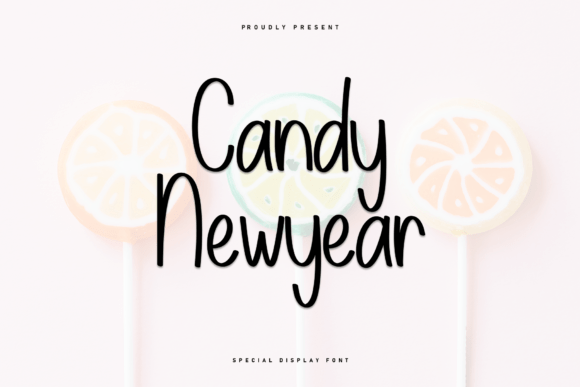
Candy Newyear Font: A Sweet and Beautiful Handwritten Font
Are you looking for a font that can add a touch of sweetness and coziness to your design projects? Look no further than the Candy Newyear Font! This beautiful handwritten font is perfect for creating festive and fun designs that are sure to delight. In this article, we’ll take a closer look at the Candy Newyear Font and explore its features, benefits, and uses.
What is Candy Newyear Font?
Candy Newyear Font is a sweet and beautiful handwritten font that features characters that dance along the baseline. This unique and playful design makes it perfect for creating designs that are fun, festive, and full of personality. The font is designed to be highly legible and versatile, making it suitable for a wide range of design projects, from greeting cards and invitations to posters and social media graphics.
Features of Candy Newyear Font
- Handwritten design: Candy Newyear Font has a beautiful handwritten design that gives it a personal and unique touch.
- Dancing characters: The characters in this font dance along the baseline, creating a playful and whimsical effect.
- Highly legible: Despite its playful design, Candy Newyear Font is highly legible and easy to read.
- Versatile: This font is suitable for a wide range of design projects, from formal to informal.
Benefits of Using Candy Newyear Font
There are many benefits to using Candy Newyear Font in your design projects. Here are just a few:
- Adds a touch of personality: This font adds a unique and playful touch to any design project.
- Creates a festive atmosphere: The dancing characters in this font create a festive and fun atmosphere that’s perfect for holiday designs or other special occasions.
Uses of Candy Newyear Font
Candy Newyear Font is a versatile font that can be used in a wide range of design projects. Here are just a few ideas:
- Greeting cards: This font is perfect for creating festive and fun greeting cards for holidays and special occasions.
- Invitations: Use Candy Newyear Font to create playful and whimsical invitations for parties and events.
- Posters: This font is great for creating eye-catching posters for movies, events, and products.
- Social media graphics: Use Candy Newyear Font to create fun and engaging social media graphics that are sure to stand out.
Tips for Using Candy Newyear Font
Here are a few tips for using Candy Newyear Font in your design projects:
- Use it sparingly: While Candy Newyear Font is a beautiful font, it can be overwhelming if used too much. Use it sparingly to create a focal point in your design.
- Pair it with other fonts: This font pairs well with other fonts, such as sans-serif fonts or script fonts. Experiment with different pairings to find the one that works best for your design.
- Experiment with colors: Candy Newyear Font looks great in a variety of colors, from bright and bold to pastel and soft. Experiment with different colors to find the one that works best for your design.
Candy Newyear Font is a sweet and beautiful handwritten font that’s perfect for adding a touch of personality and whimsy to your design projects. With its unique and playful design, this font is sure to delight and engage your audience. Whether you’re creating greeting cards, invitations, posters, or social media graphics, Candy Newyear Font is a great choice.